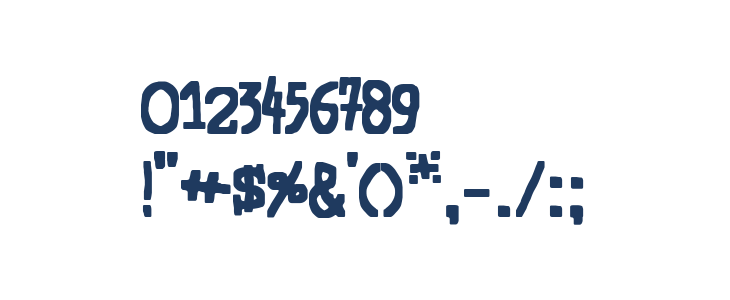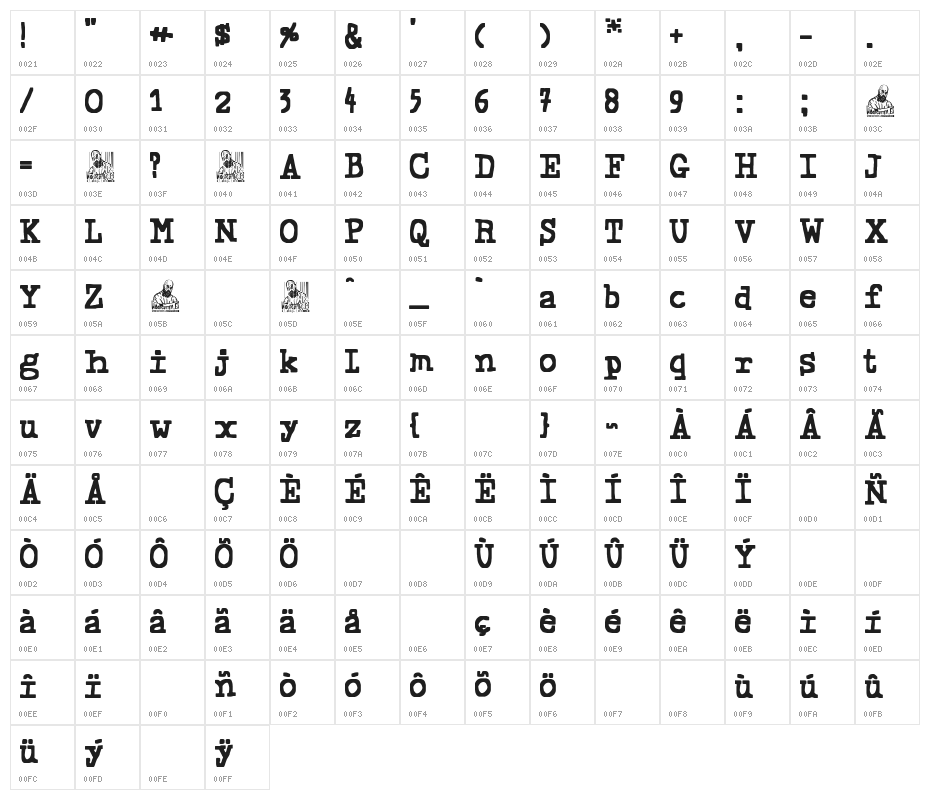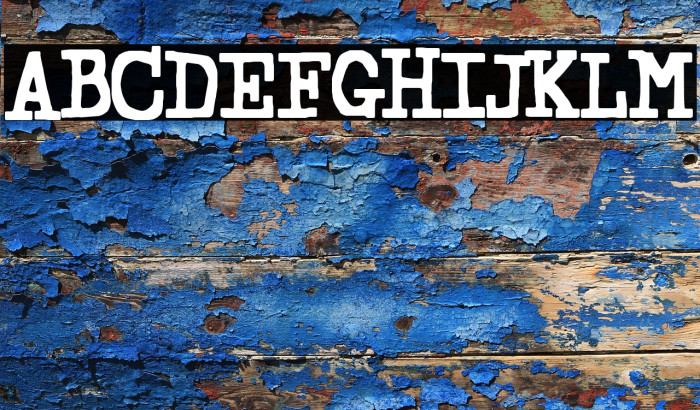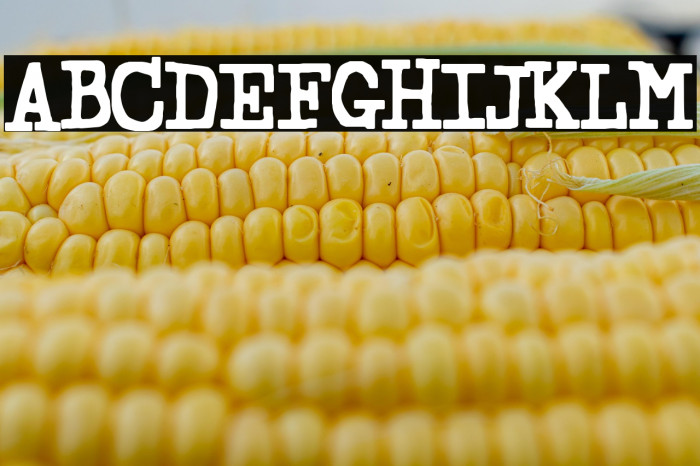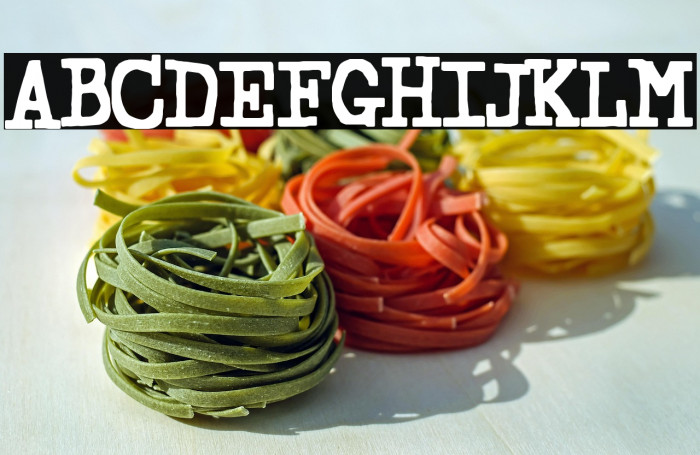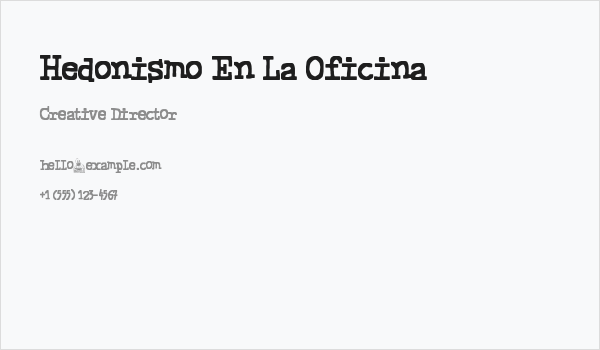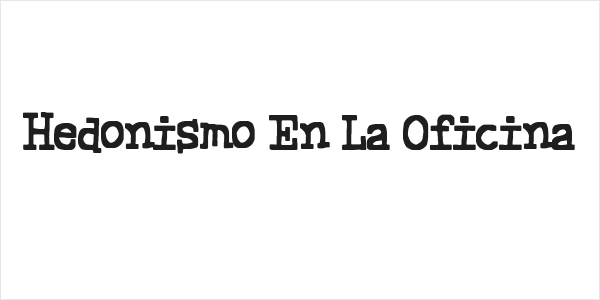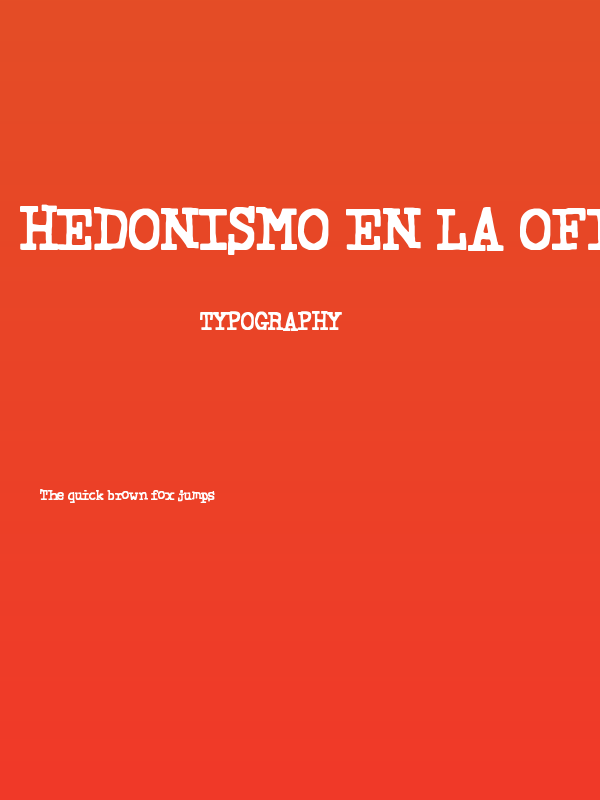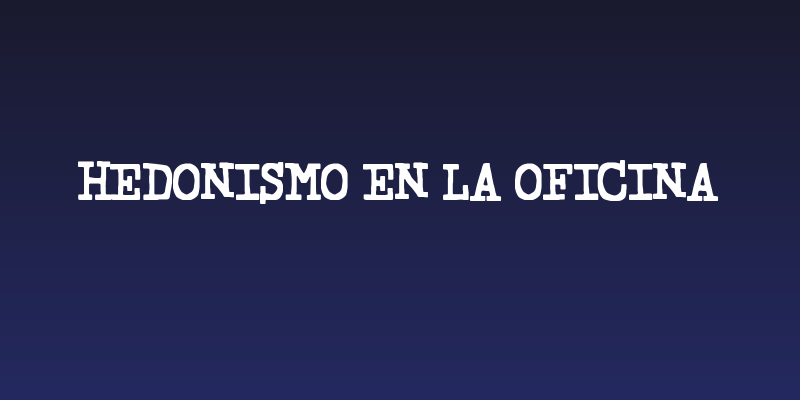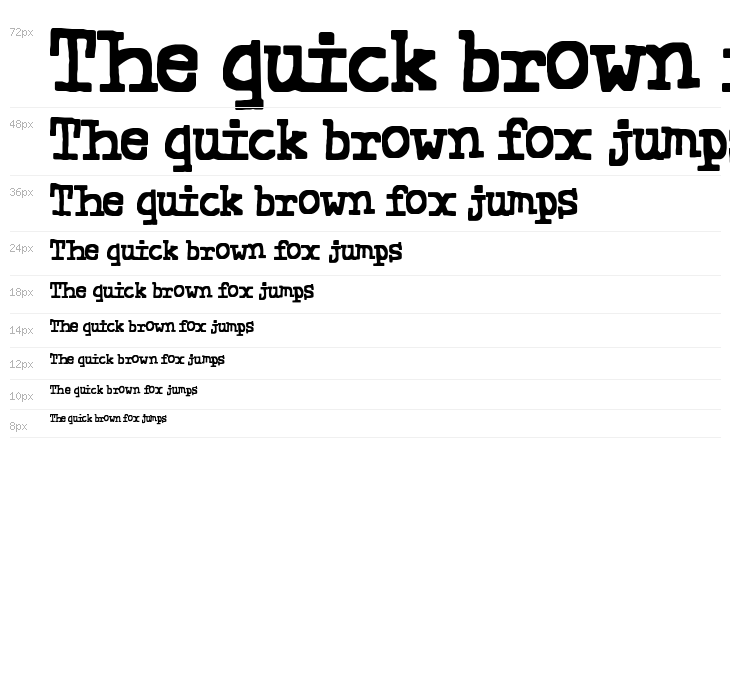
Hedonismo En La Oficina Font
Hedonismo En La Oficina Description
This font features a bold and playful design with a distinctly hand-drawn aesthetic. The characters are slightly irregular, giving it a whimsical and informal feel. The uppercase letters are robust and commanding, while the lowercase letters maintain a consistent style with rounded edges and a friendly appearance. Numbers and special characters follow the same playful theme, ensuring a cohesive look across all text elements. The font's unique style makes it stand out, perfect for projects that require a touch of creativity and fun.
| Proposed Projects | Ideal for children's books, creative posters, playful branding, and casual invitations. |